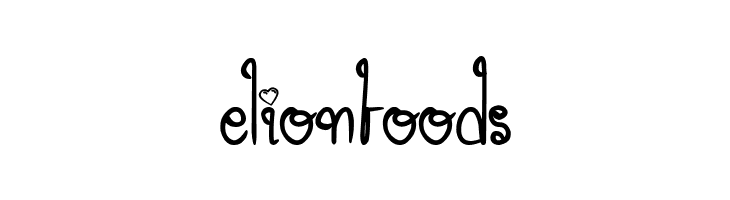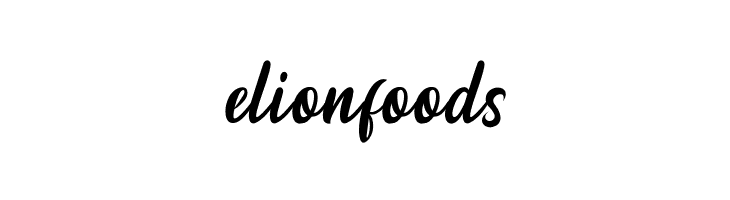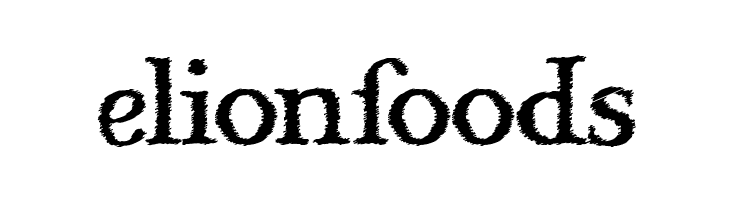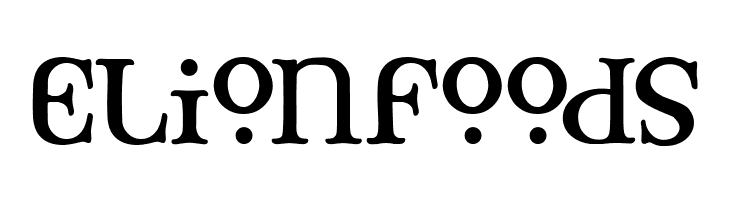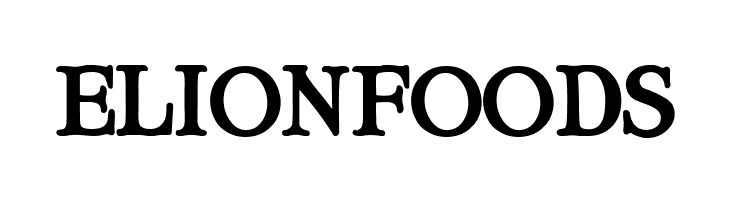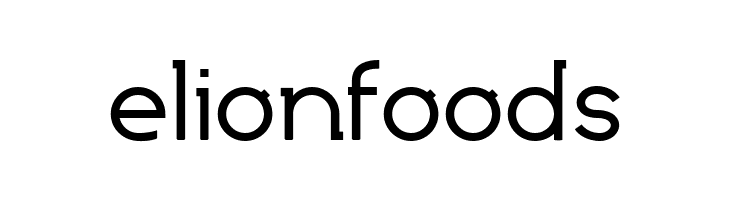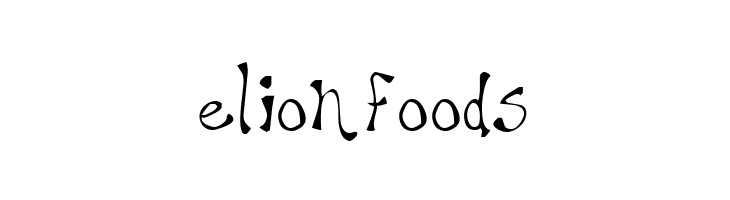
A classic serif typeface with elegant, traditional design and moderate contrast.
A decorative font combining classic elegance with modern flair, featuring bold, artistic characters.
A classic serif font with a textured, vintage appearance.
A playful, handwritten font with whimsical embellishments.
A modern, geometric font with consistent stroke width and clear characters.
An elegant script font with flowing, cursive letterforms and dramatic flourishes.
An elegant, flowing script font with bold, cursive letterforms.
A dynamic and elegant script font with flowing cursive strokes.